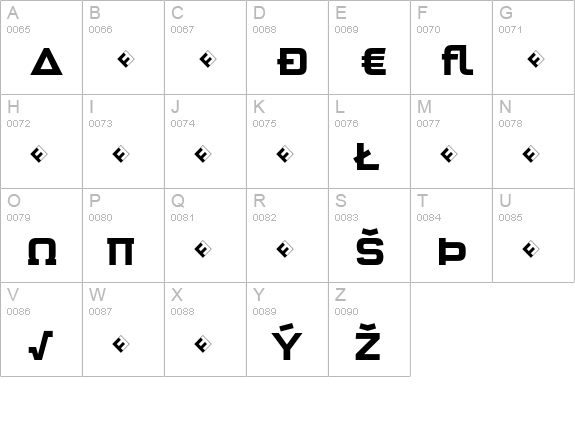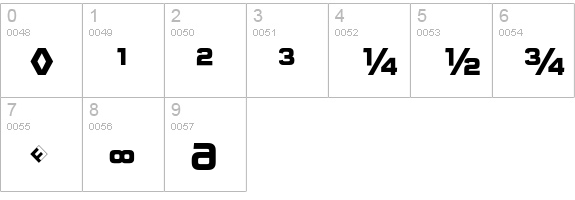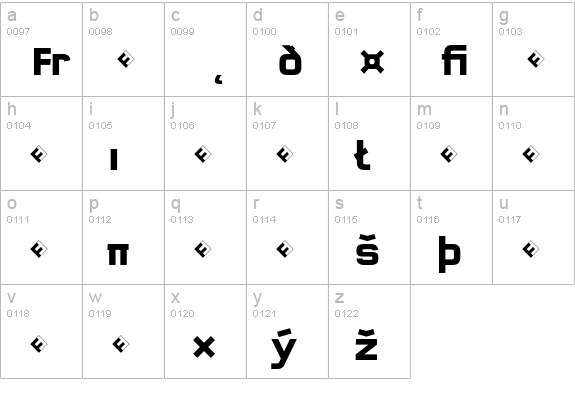
QTypeSquare-BoldExpert Font Details
Introducing QTypeSquare-BoldExpert, a bold and expertly crafted font that exudes confidence and sophistication. This font is perfect for adding a touch of elegance and professionalism to your designs. With its bold and powerful strokes, QTypeSquare-BoldExpert commands attention and makes a bold statement. QTypeSquare-BoldExpert offers a unique blend of modernity and classic design elements, making it versatile for a wide range of creative projects. Whether you're designing logos, headlines, posters, or invitations, this font will add a touch of sophistication and style. One of the most remarkable aspects of QTypeSquare-BoldExpert is that it is freely available to download at FontsMarket.com. Yes, you read that right! This incredible font can be accessed and used without any cost, allowing designers and creatives to enhance their projects without breaking the bank. In addition to its stunning aesthetic qualities, QTypeSquare-BoldExpert also boasts exceptional legibility. Its well-defined letterforms ensure that your message is conveyed clearly and effectively, even at smaller sizes. QTypeSquare-BoldExpert is compatible with various design software, including Adobe Illustrator, Photoshop, and InDesign, making it effortless to incorporate into your existing workflow. Its extensive character set includes uppercase and lowercase letters, numerals, punctuation marks, and special characters, providing you with the versatility and flexibility needed to bring your creative visions to life. Don't miss out on the opportunity to elevate your designs with QTypeSquare-BoldExpert. Download this extraordinary font for free at FontsMarket.com and unlock a world of possibilities for your creative projects. Experience the power and elegance of QTypeSquare-BoldExpert today!